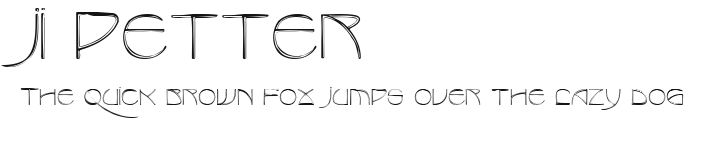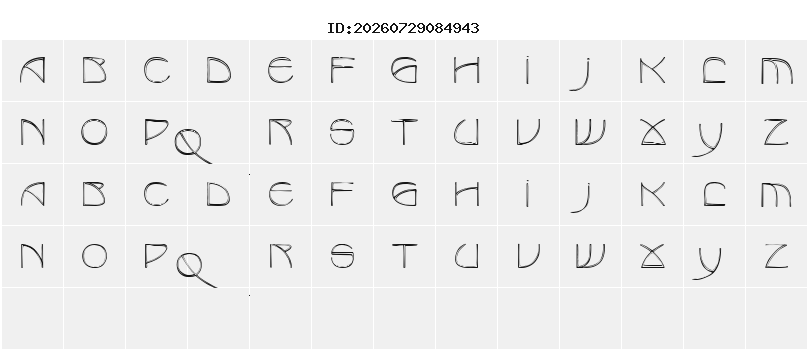
• Font Name: JI-Petter
• Full Font Name: JI-Petter
• Designer: JupiterImages
About JI-Petter.ttf
JI-Petter.ttf is a modern, elegant sans-serif font designed for ultimate readability and visual harmony. Perfect for branding, headlines, web design, and print materials.